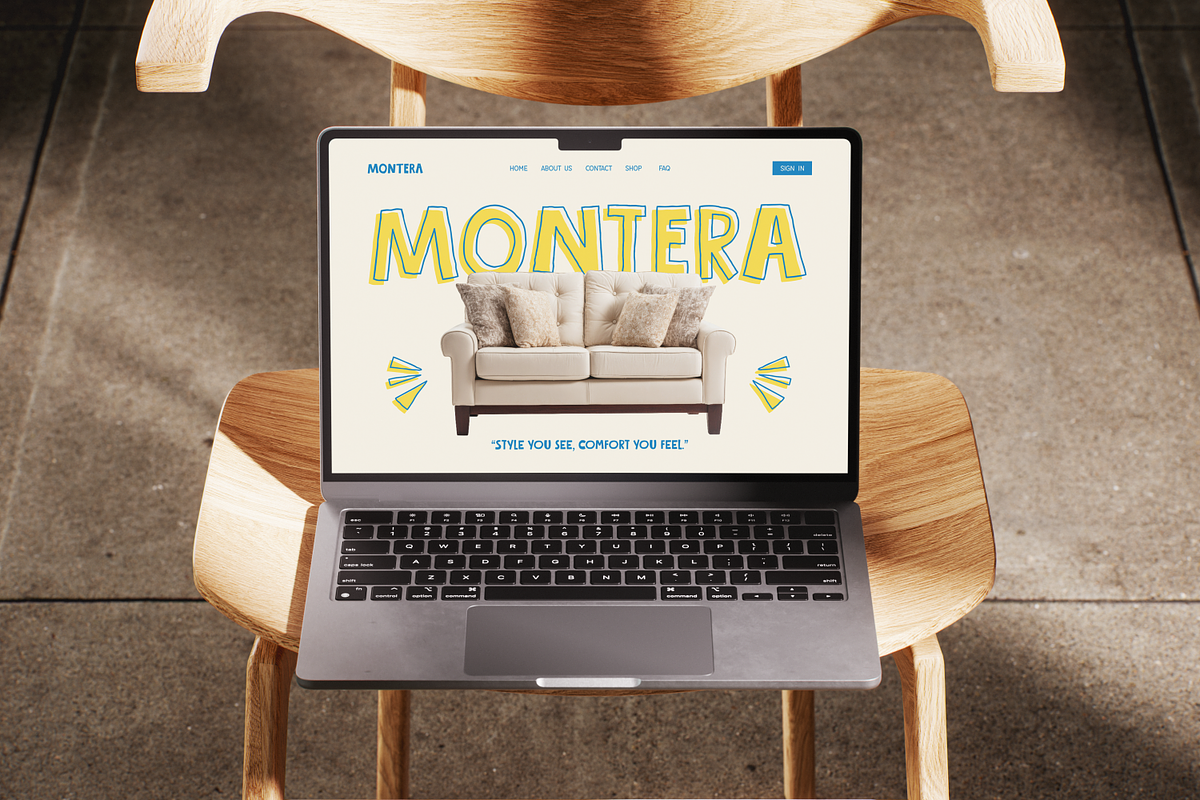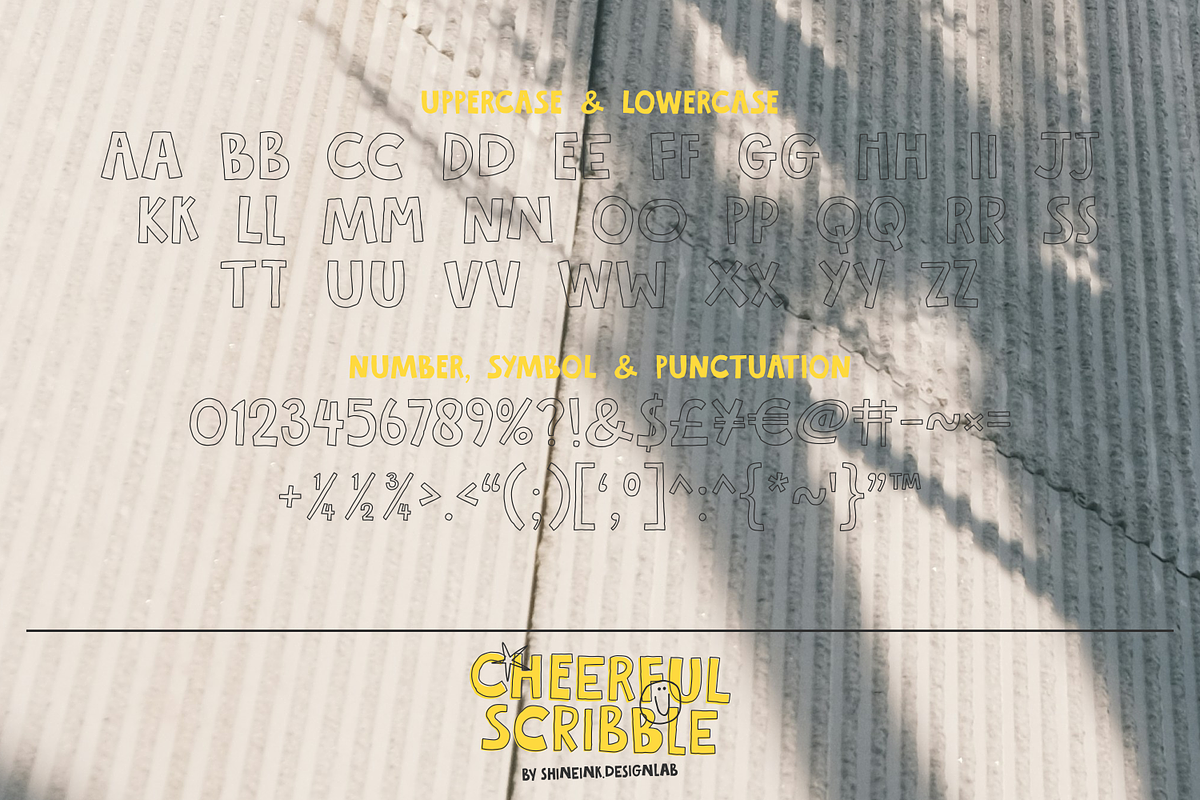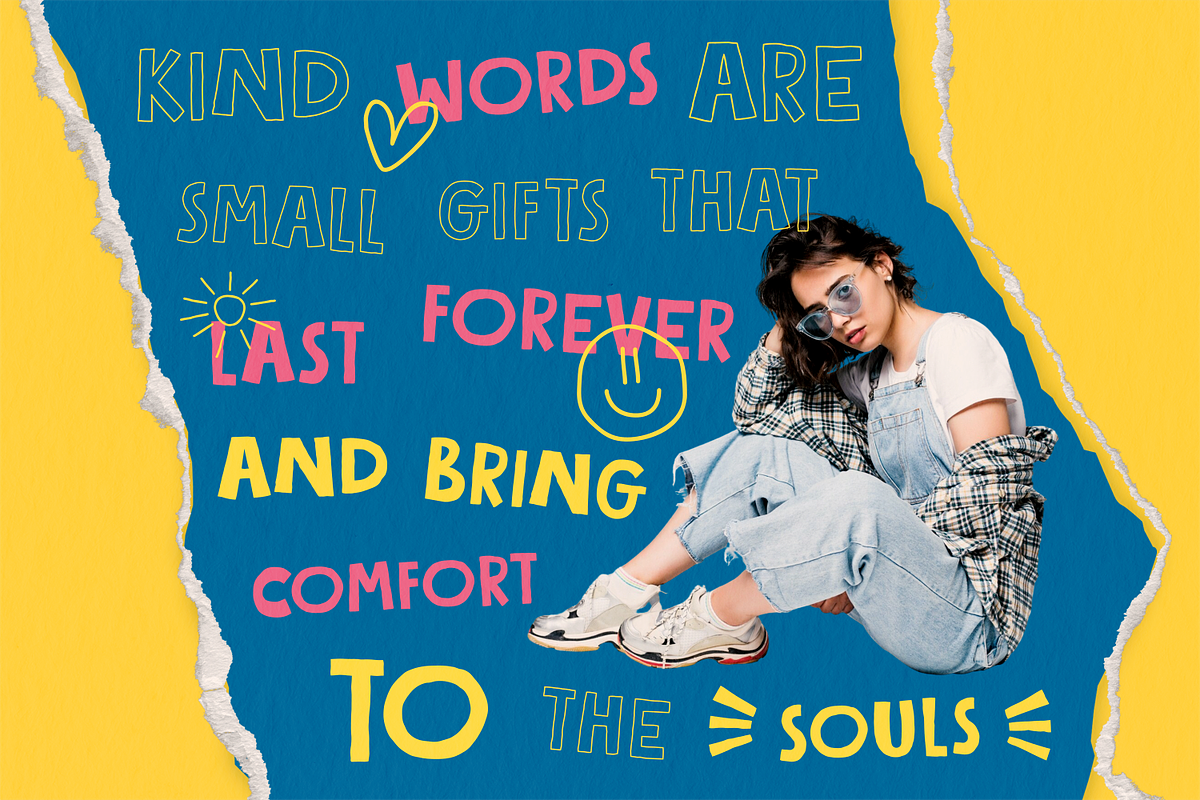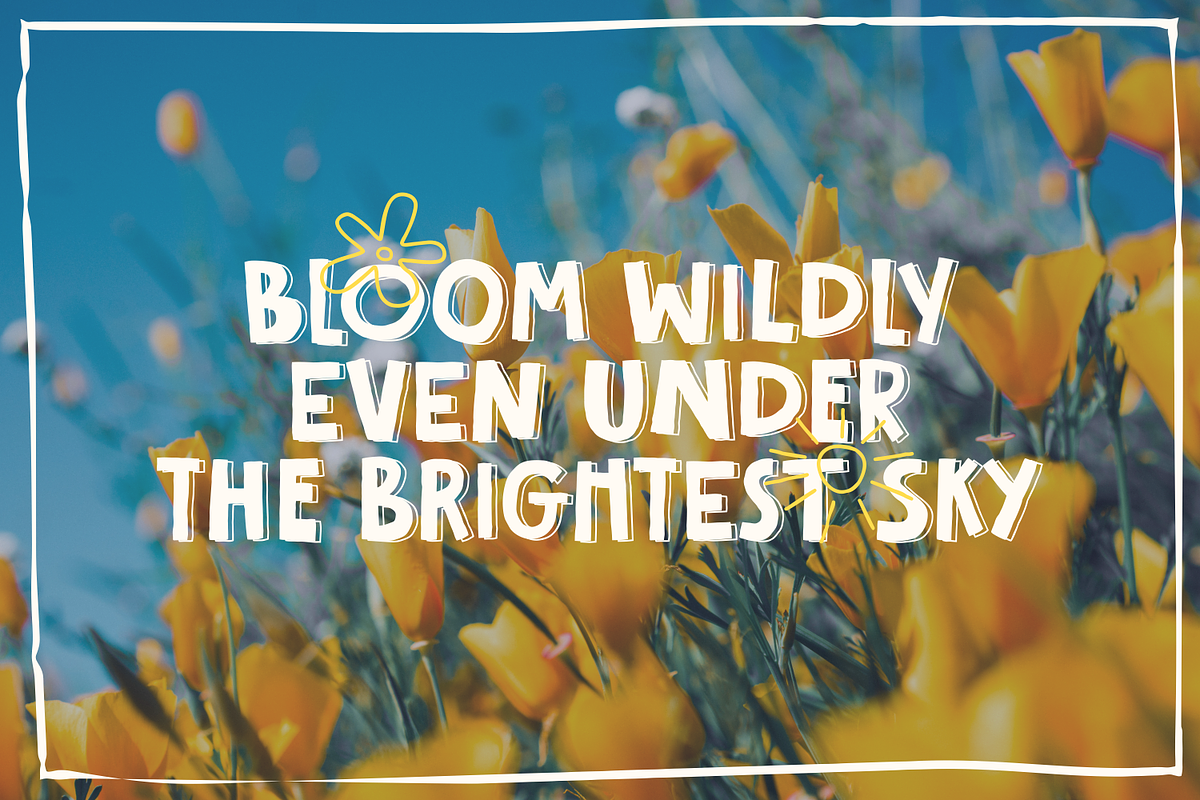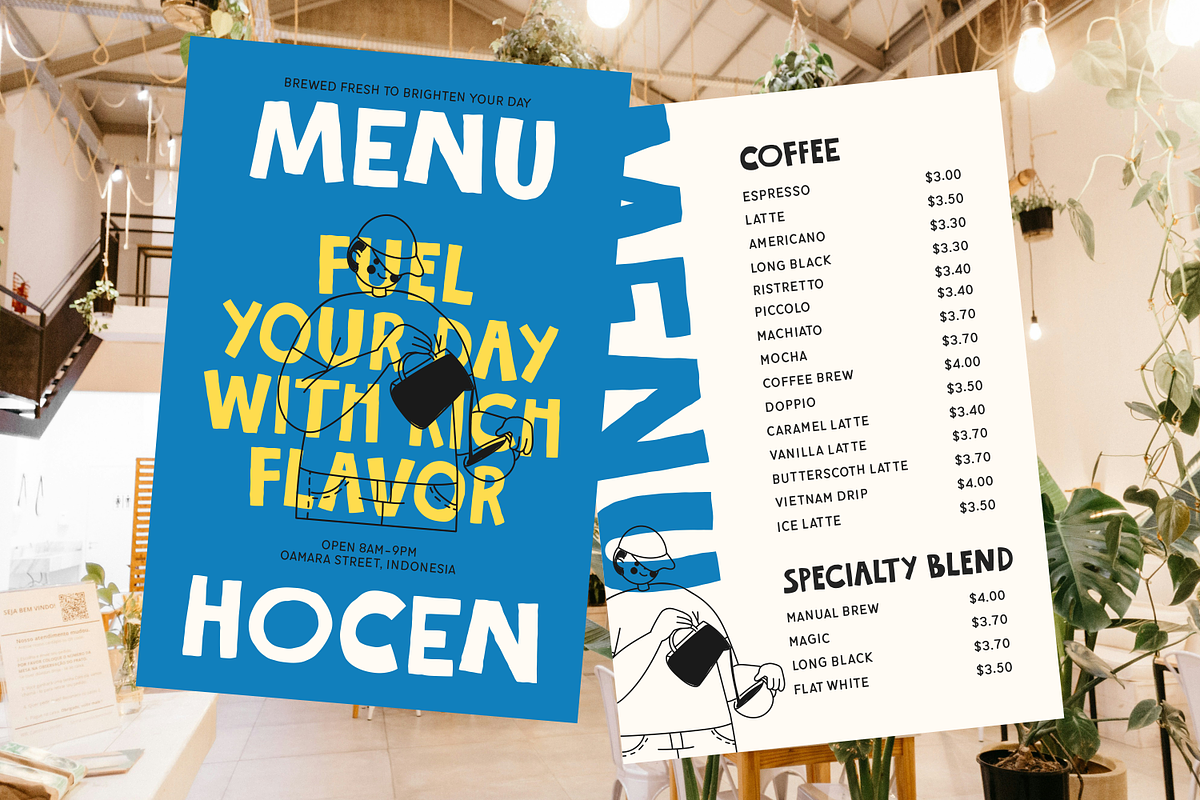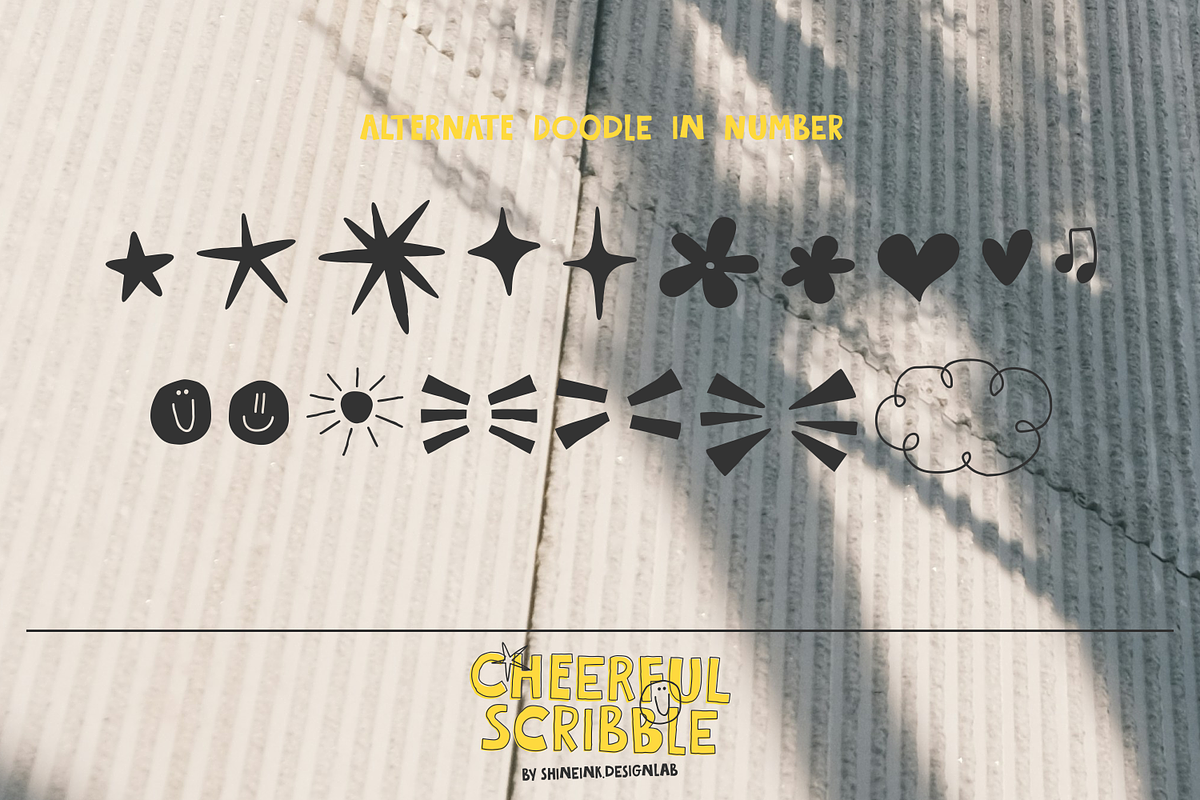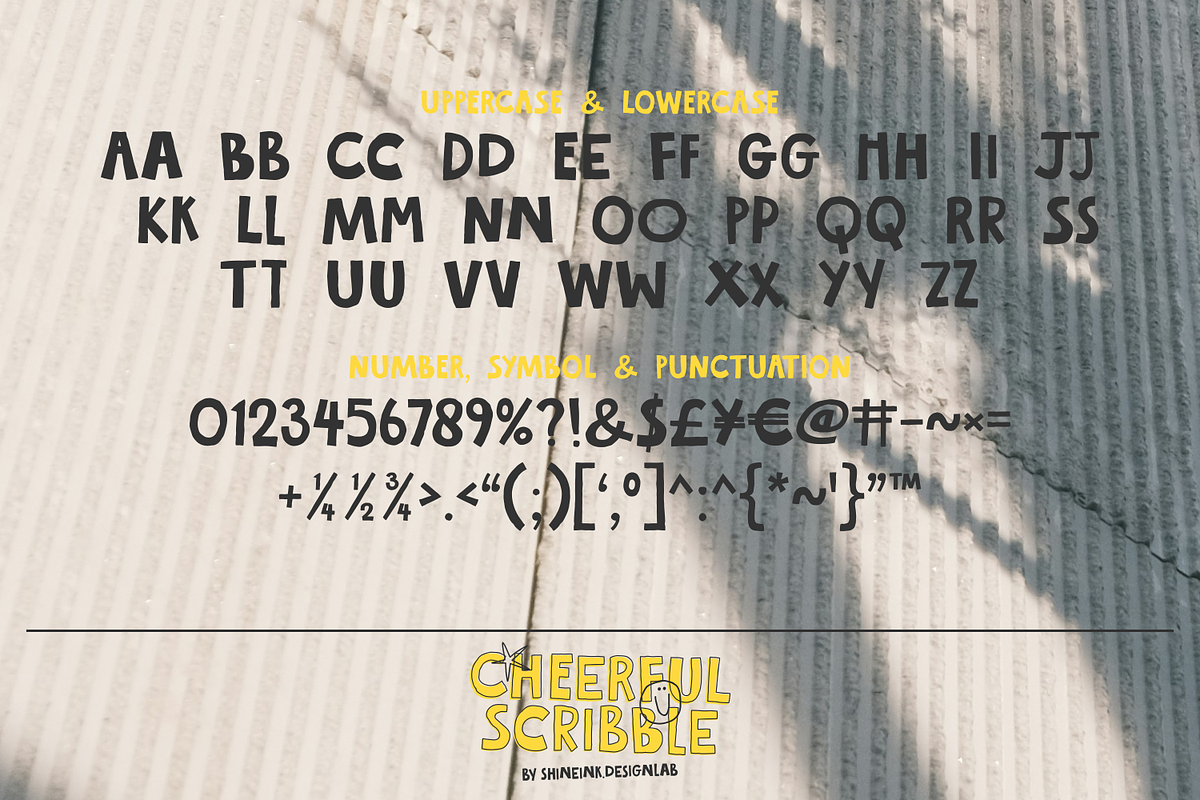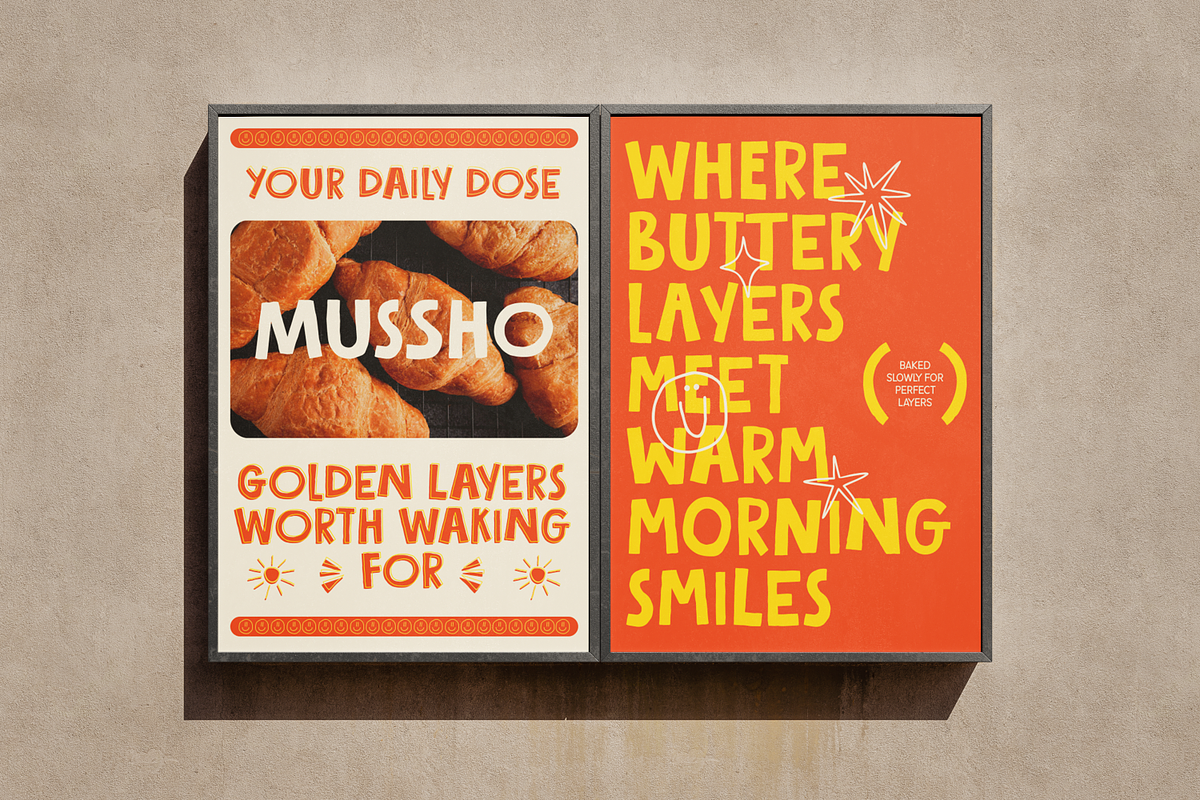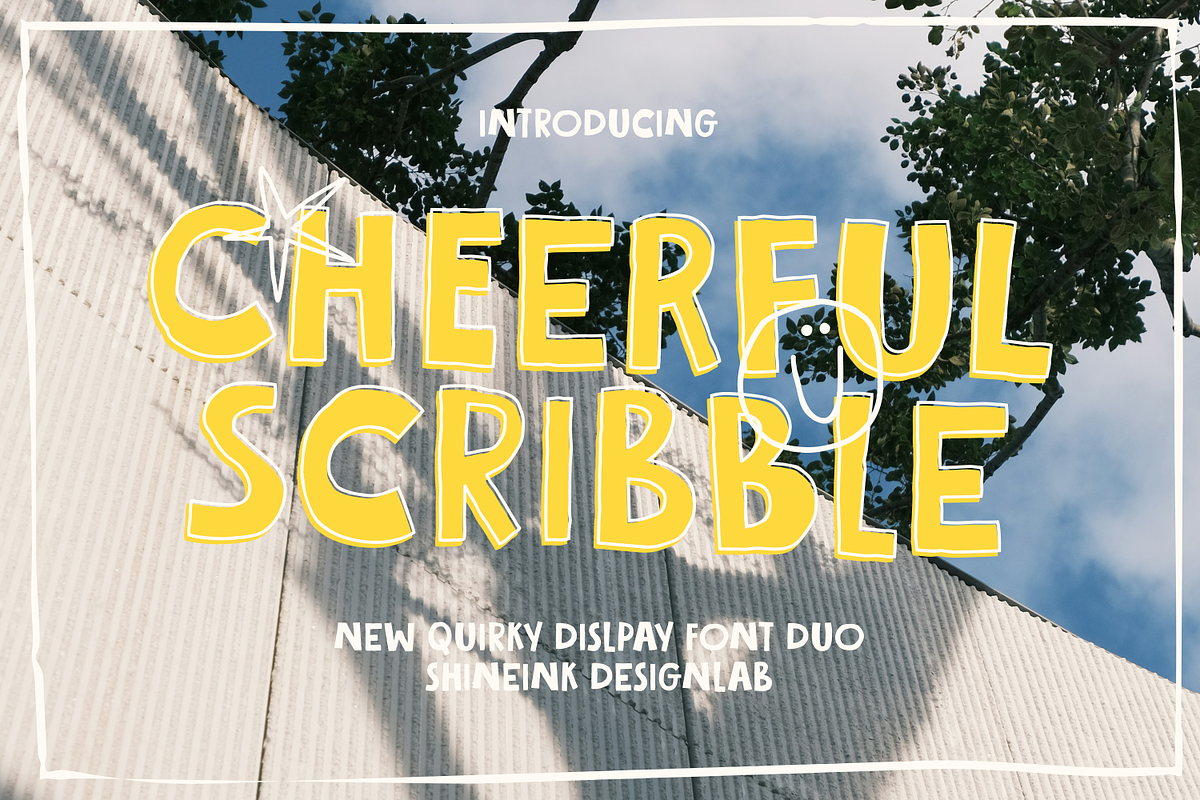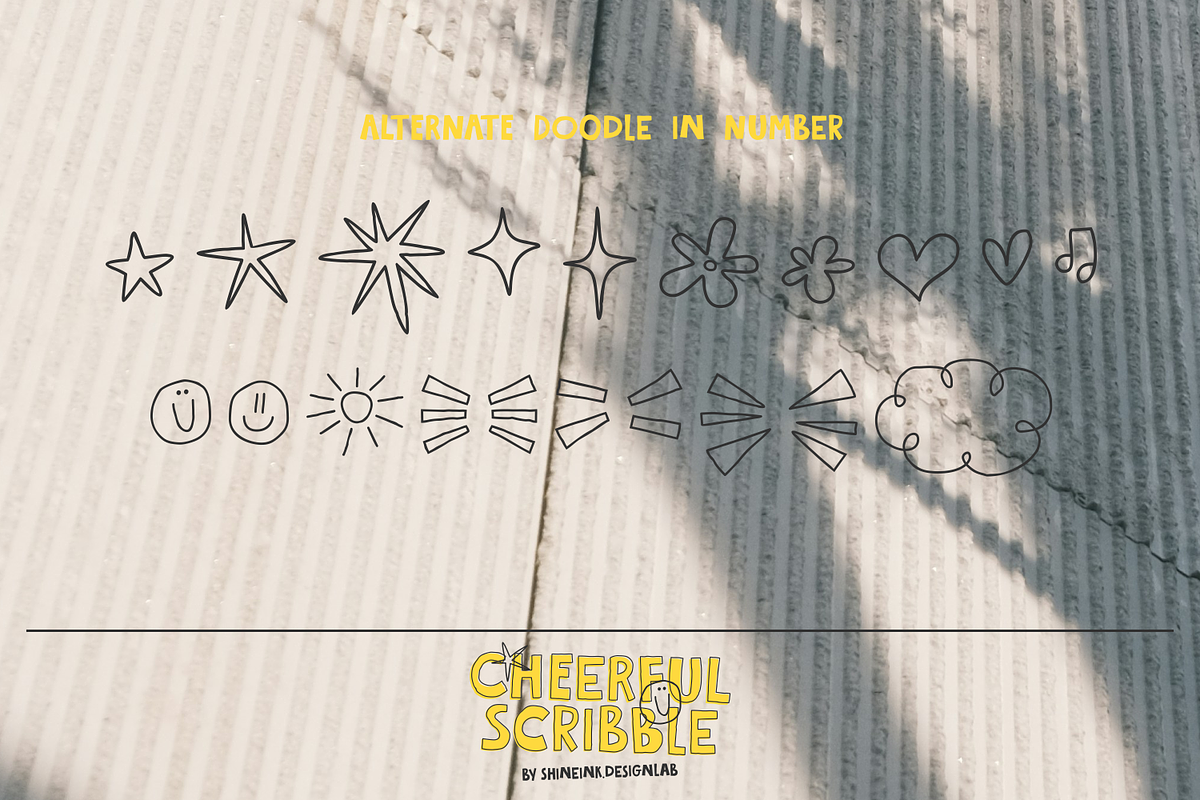
Cheerful Scribble – Quirky Display
I'm present to you, Quirky Display Font Duo, called Cheerful Scribble!
Cheerful Scribble is a joyful and quirky display font duo inspired by playful hand scribbles and cheerful doodles. With its bold shapes, rounded forms, and imperfect outlines, this font instantly brings a happy, friendly, and expressive vibe to any design.
Designed to feel spontaneous and full of personality, Cheerful Scribble combines a solid bold style with a lively outlined companion—perfect for creating fun contrasts and eye-catching typography. Every letter feels hand-crafted, making your designs look warm, approachable, and creatively alive.
This font duo is ideal for kids projects, playful branding, posters, packaging, social media content, quotes, stickers, and creative merchandise. Whether you’re working on something cute, colorful, or creatively bold, Cheerful Scribble adds an instant smile to your work.
- Lowercase and Uppercase
- Multiple Languages Supported
- 2 Style Font
- Doodle in Alternate Number